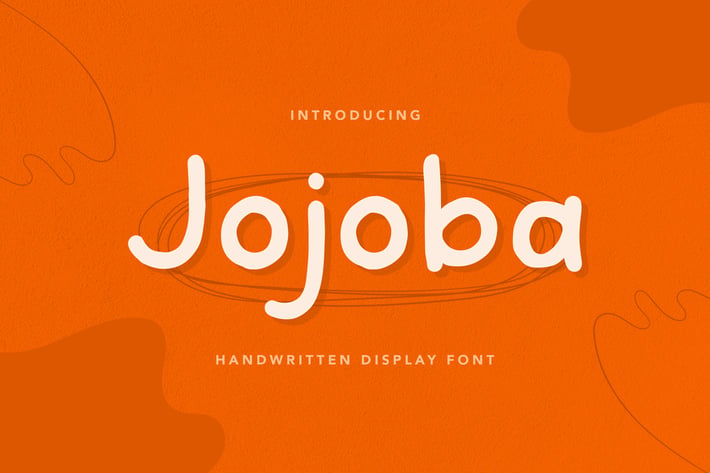
Jojoba - Handwritten Display Font
An ordinary, fun, bold, and playful font type. Jojoba font is a perfect fit for a quote, motivational theme, food, love, romantic, and kids theme - or a stylish text overlay to any background image. It's also could be good for both fun and minimalist-themed text.
+ Font type with fun, playful, and bold character.
+ Uppercase and lowercase characters
+ Numbering and Punctuation